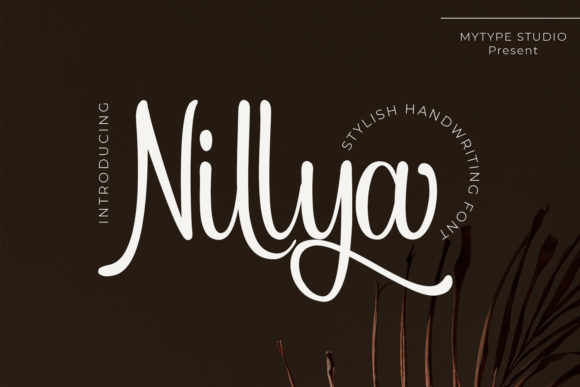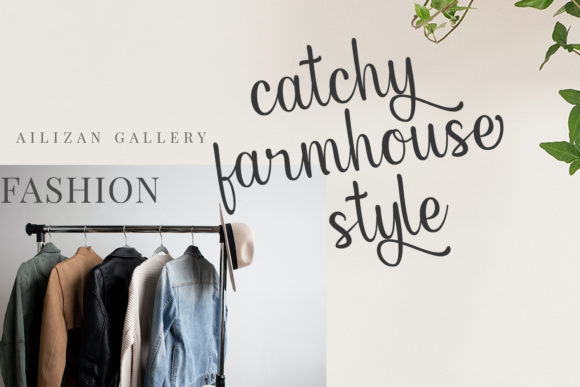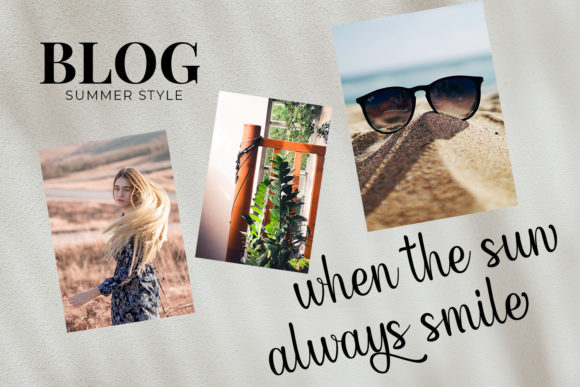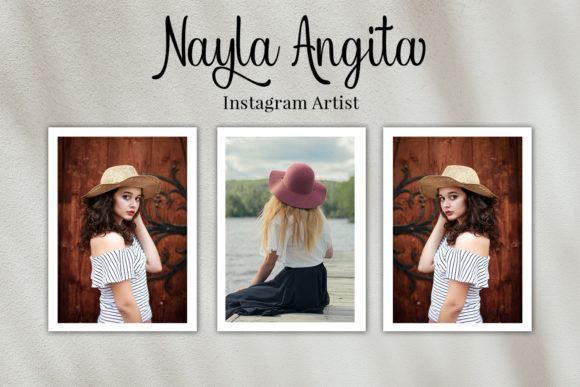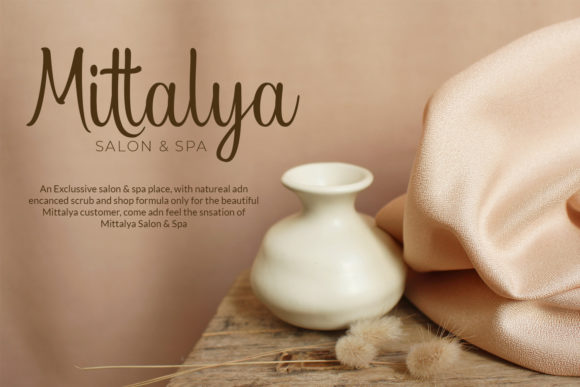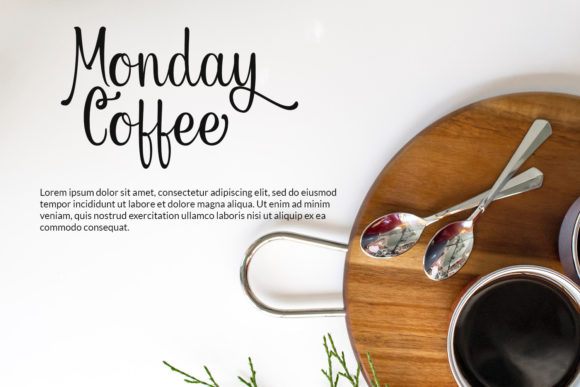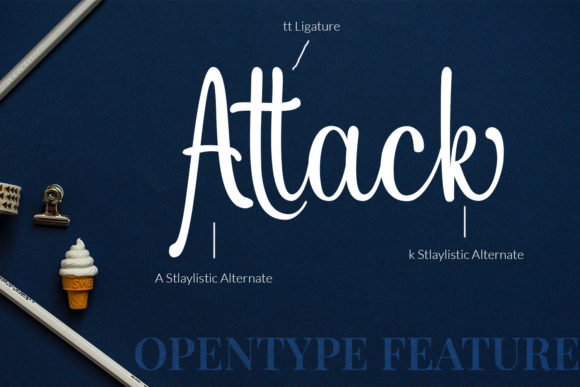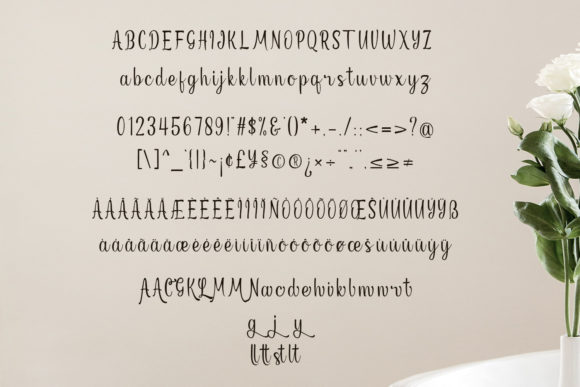
Nillya Font
About Nillya Font
Nillya is a flowing, refined script font that emanates sophistication and elegance. Its stylish alternates and ligatures make this font the perfect match for any project. Nillya is PUA encoded which means you can access all of the glyphs and swashes with ease!